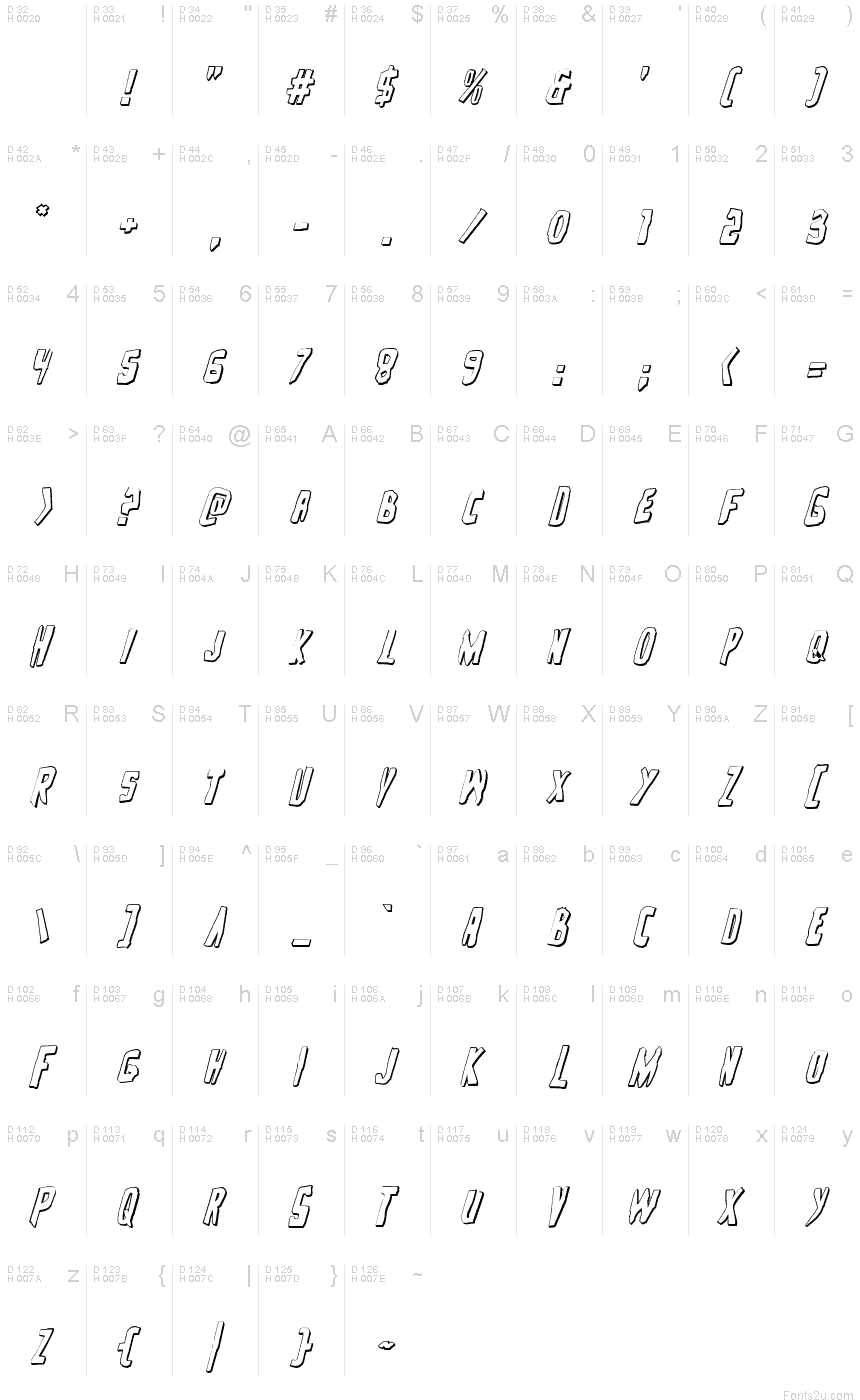
Zakenstein 3D Italic by Daniel Zadorozny of Iconian Fonts is a free outlined 3D display font with a sharp, hand-cut look. Its tall, slanted letters have uneven contours, changing stroke widths, and pointed joins that keep the forms lively. A heavy offset shadow gives the lettering depth and a comic-book snap.
It is strongest on action posters, where the forward lean and rough edges suggest speed and impact. The same exaggerated drawing suits arcade game graphics and band merchandise. For magazine covers, it can turn a feature title into part of the illustration, especially in stories about comics, extreme sports, or loud music.
Zakenstein 3D Italic